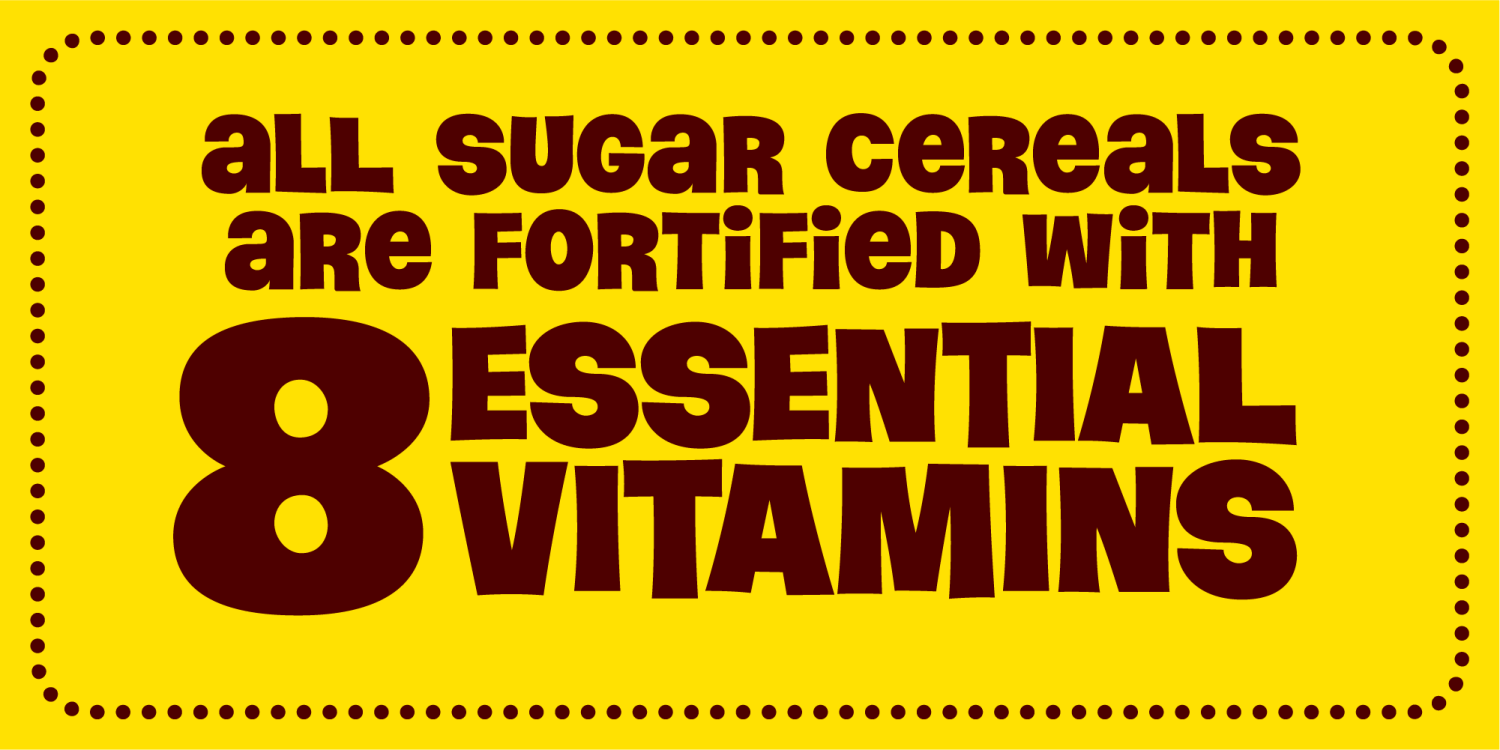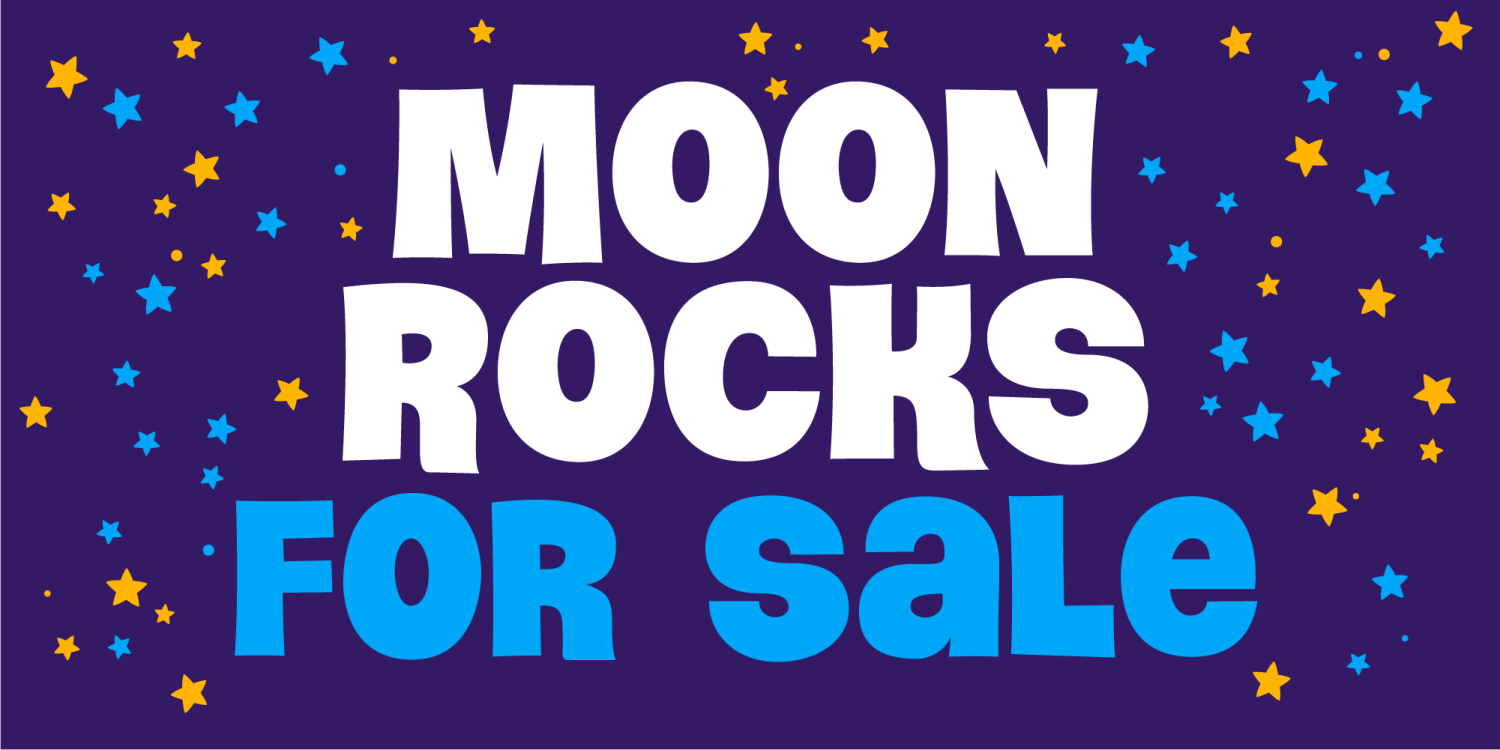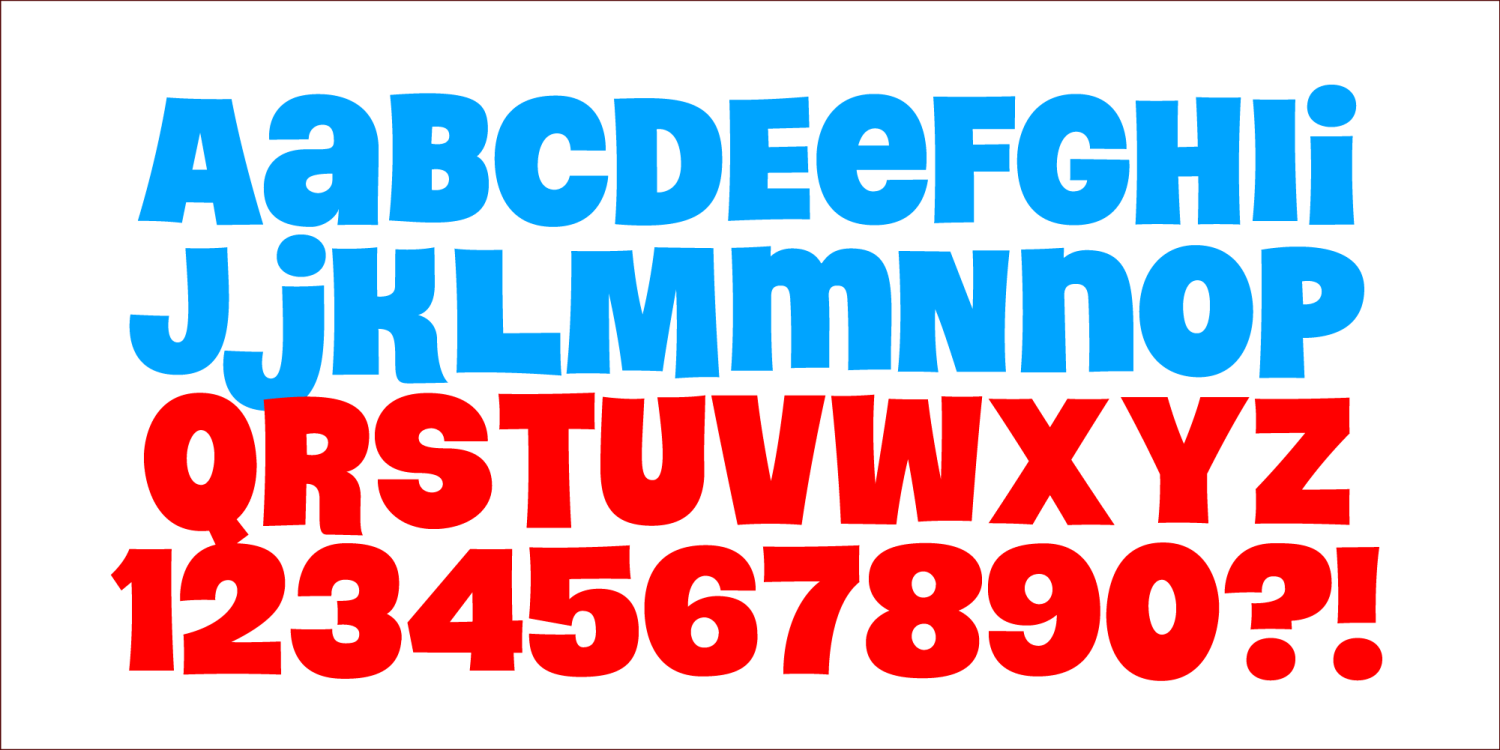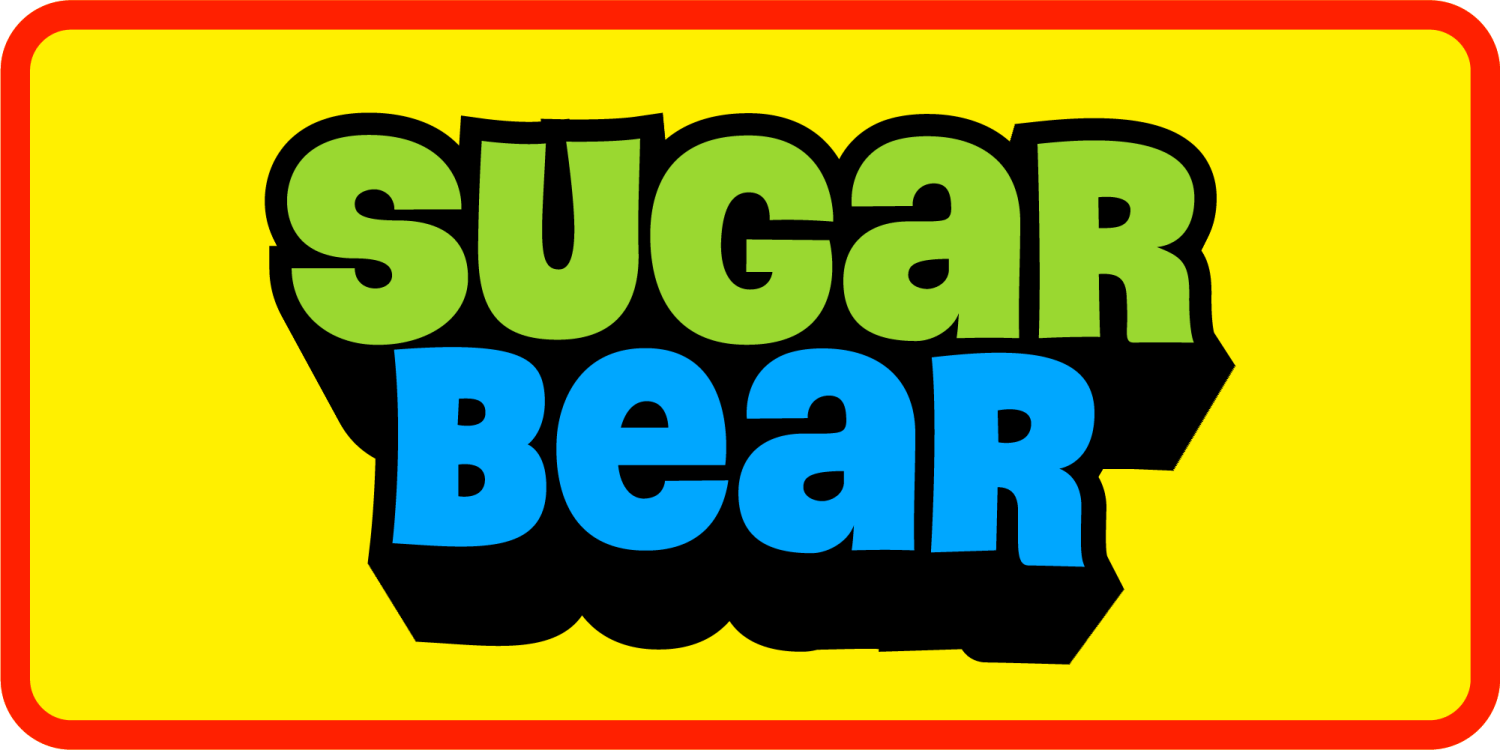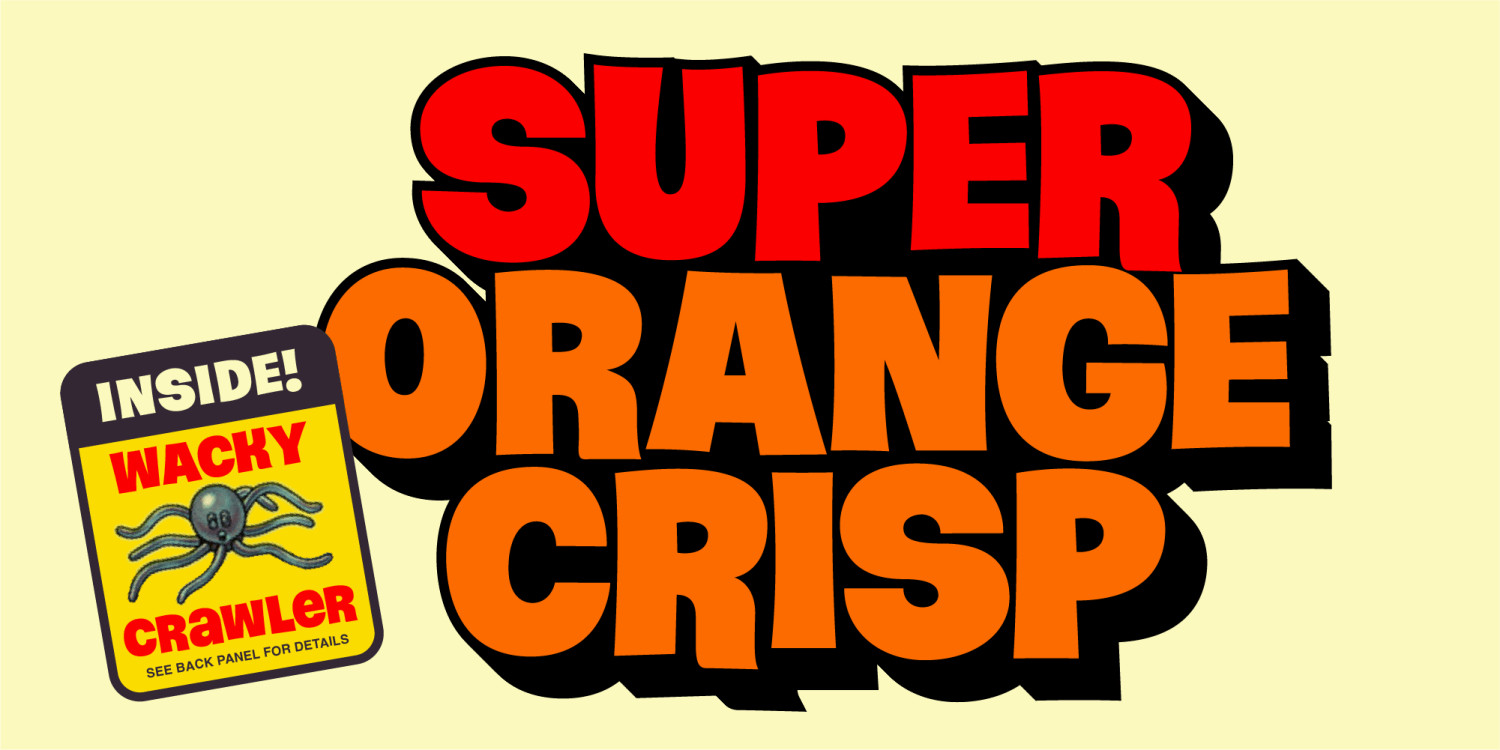
Inspired by the sugary days of 1970s breakfast cereals, Sugar Bear is as sweet as a spoonful of your favorite morning treat, with a touch of retro flair that transports you to a disco breakfast party. Download Sugar Bear today, because every word deserves…